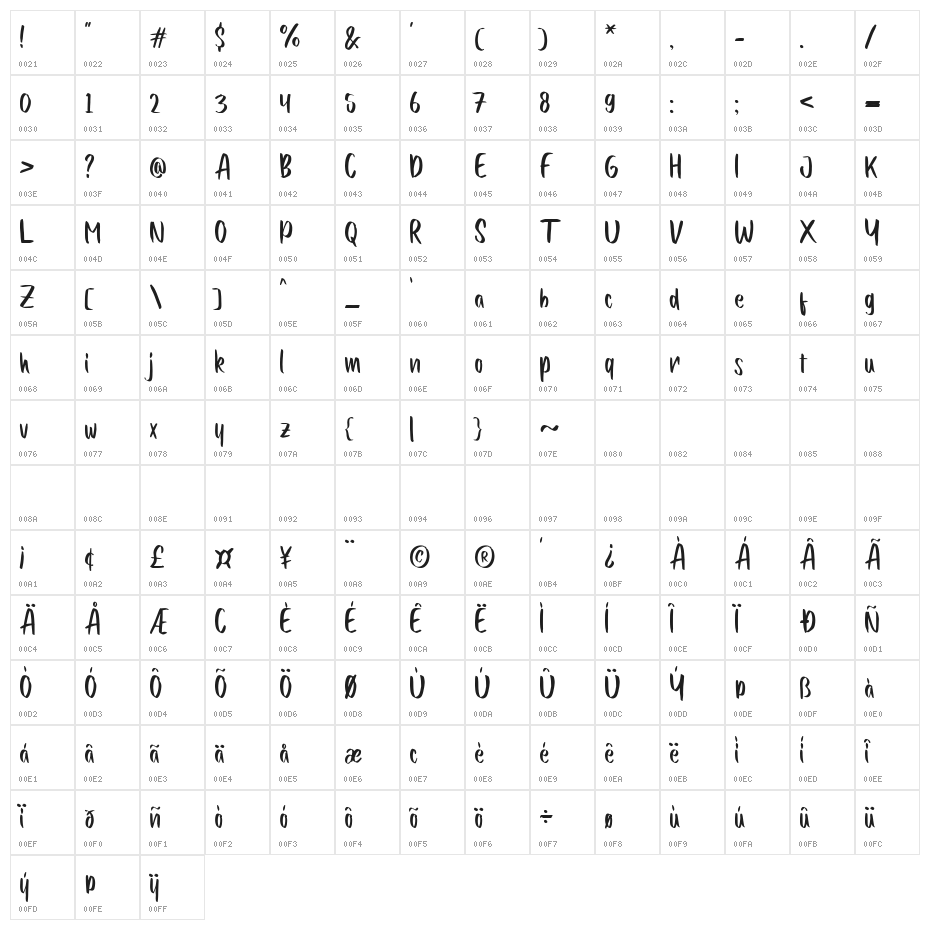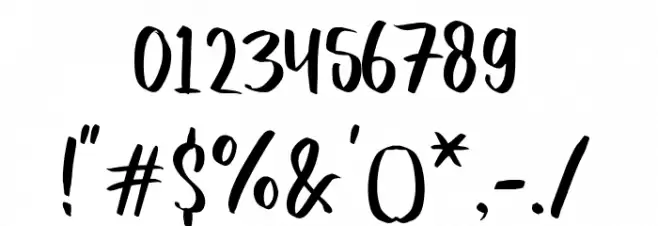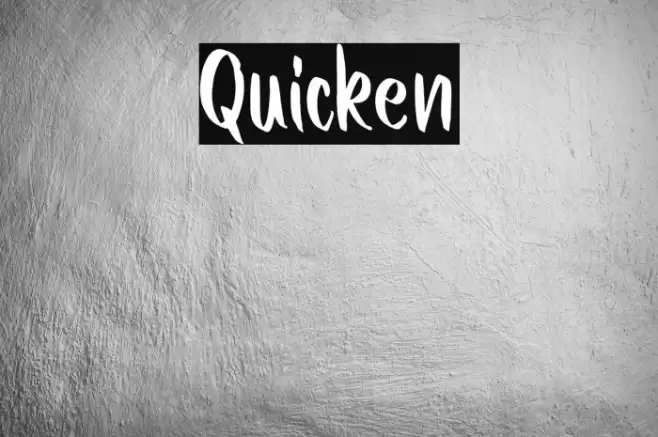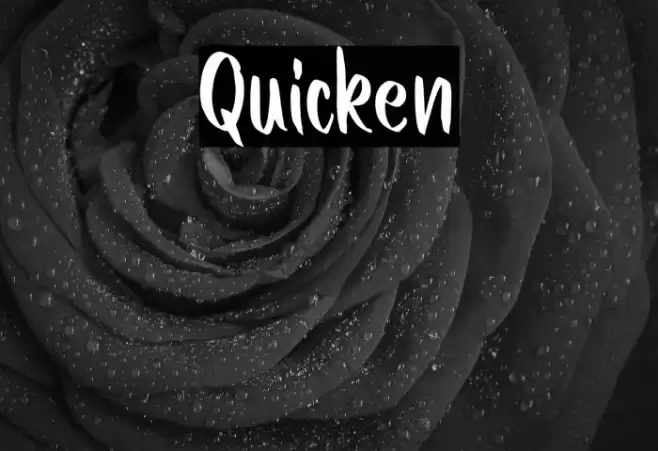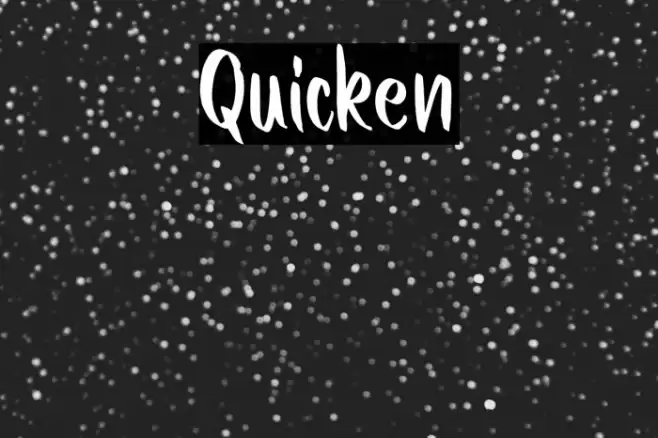
Quicken Font
Quicken Description
This font features a bold and dynamic handwritten style, characterized by its fluid and expressive strokes. The letters have a playful and informal appearance, with varying thickness that adds a sense of movement and energy. The uppercase and lowercase letters maintain a consistent style, with rounded edges and a slightly slanted orientation, giving it a casual yet artistic feel. The numerals and special characters follow the same design principles, ensuring a cohesive look across all elements. This font is ideal for projects that require a personal touch or a creative flair.